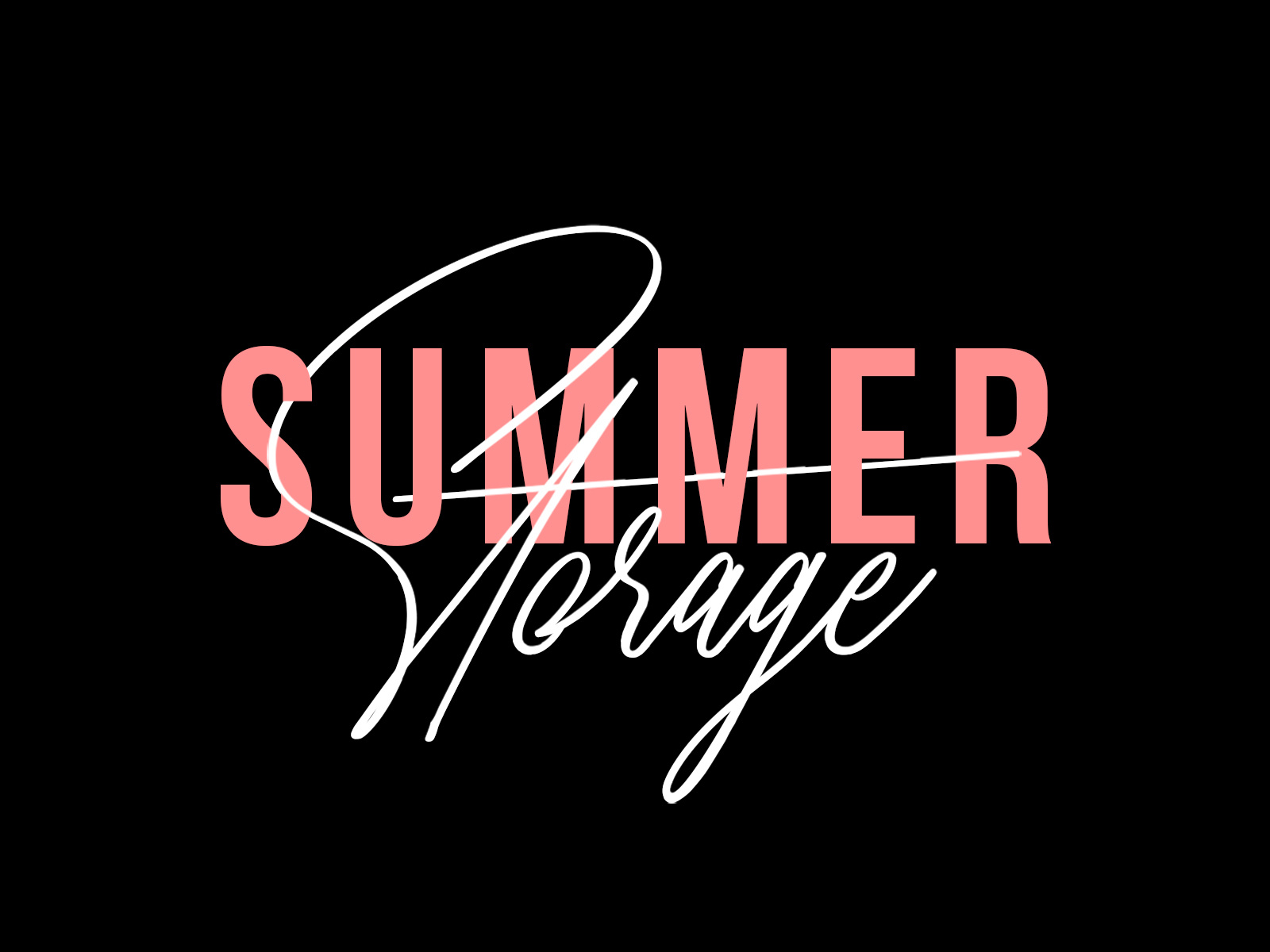
Stampson Signature Font #2
If your designs lack the touch of realism, the properly selected typeface is ready to save the situation. Light and lively font shares the hand-written aesthetics in every curl.